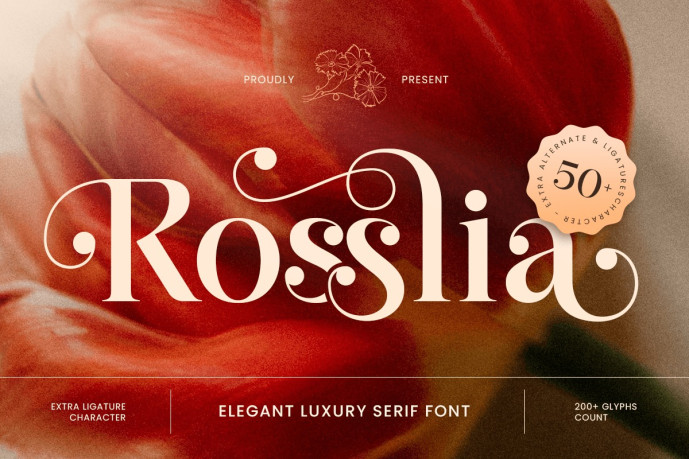
Rosslia Font
Designer: HamzStudio
Rosslia Font is an elegant, luxury serif typeface designed to express refinement, sophistication, and timeless beauty. With its graceful curves, balanced proportions, and high-end serifs, this typeface is ideal for luxury brands, fashion campaigns, editorial layouts, and packaging.
Designed for designers seeking exclusivity and elegance, Rosslia combines a modern aesthetic with the classic charm of the serif. Its refined letterforms create a sophisticated visual presence that is perfectly suited for logos, magazine titles, invitations, beauty products, and high-end brand identities.
Whether used in print or digital media, Rosslia offers exceptional readability while maintaining a luxurious and memorable character, making it a perfect choice for brands that value elegance and prestige.